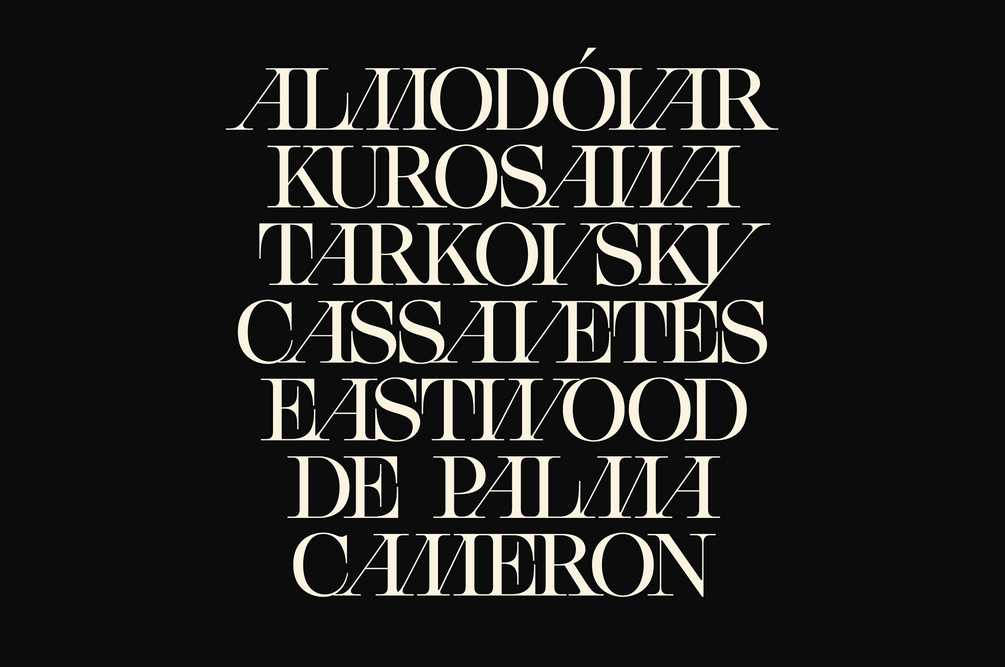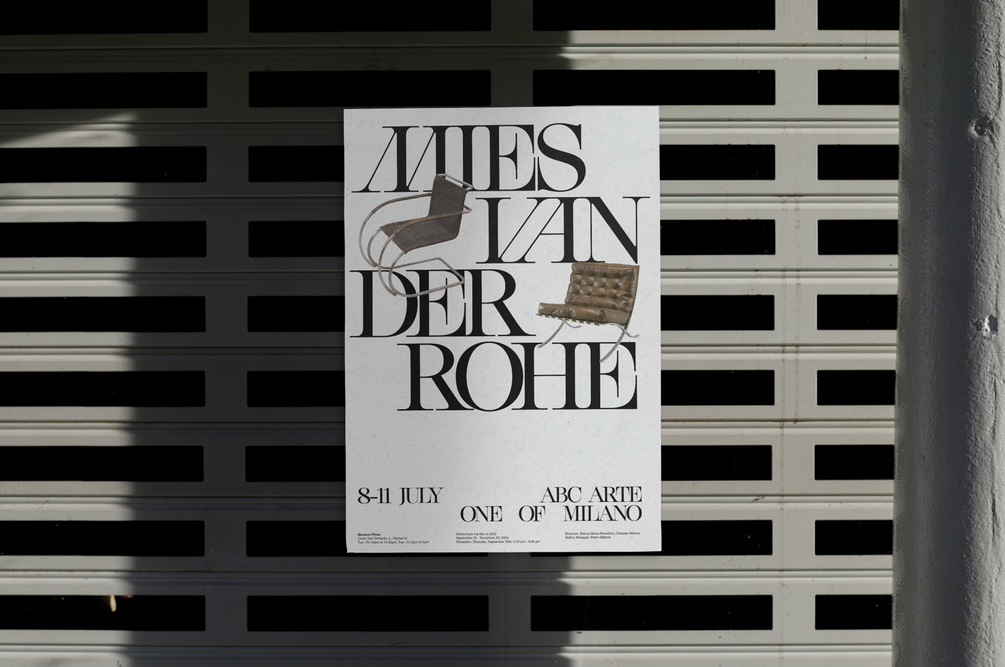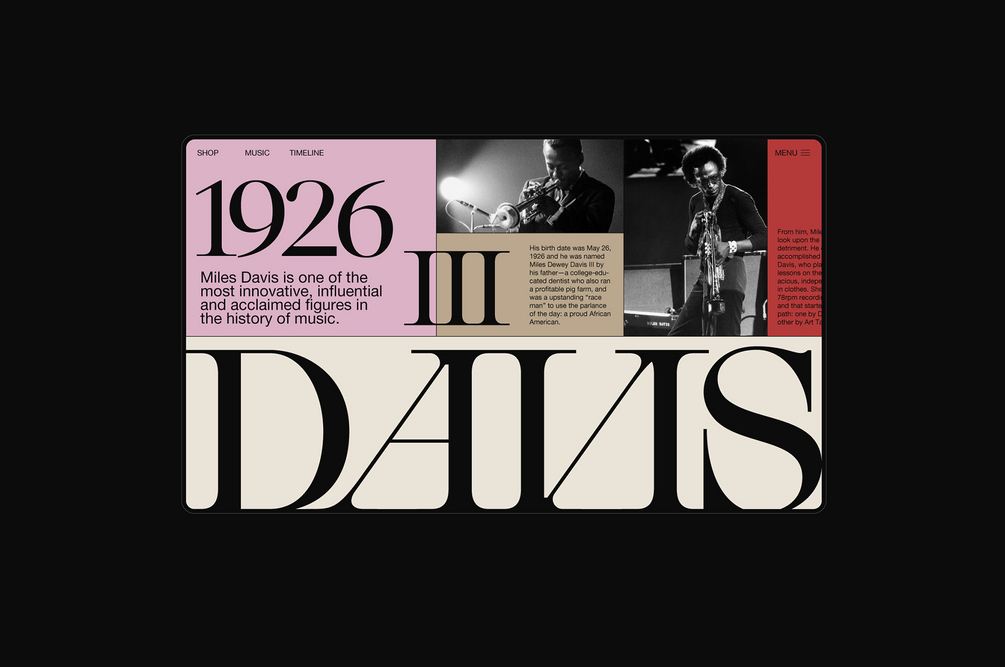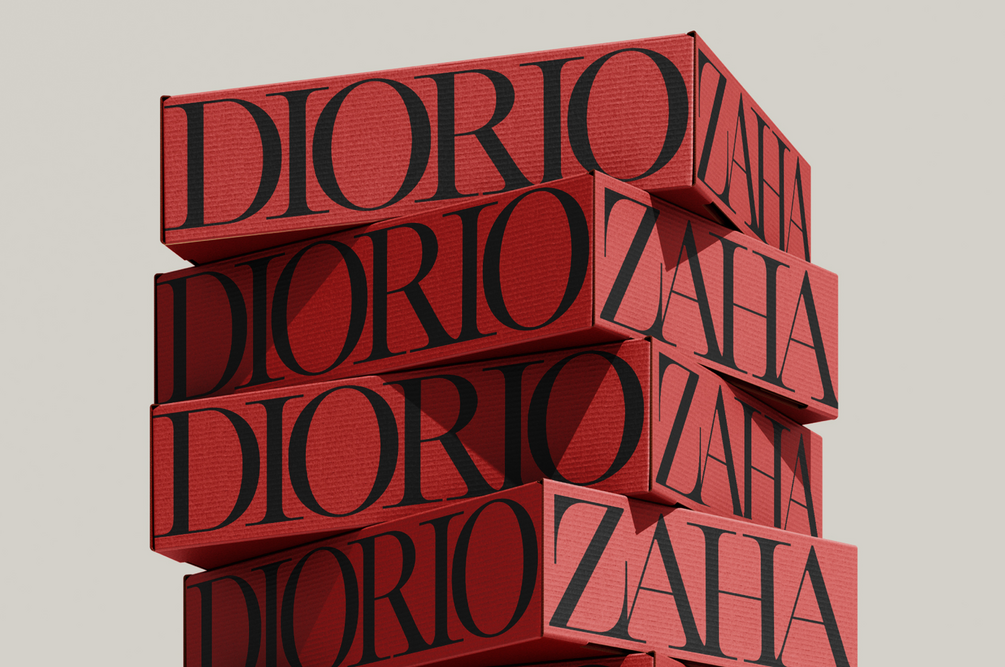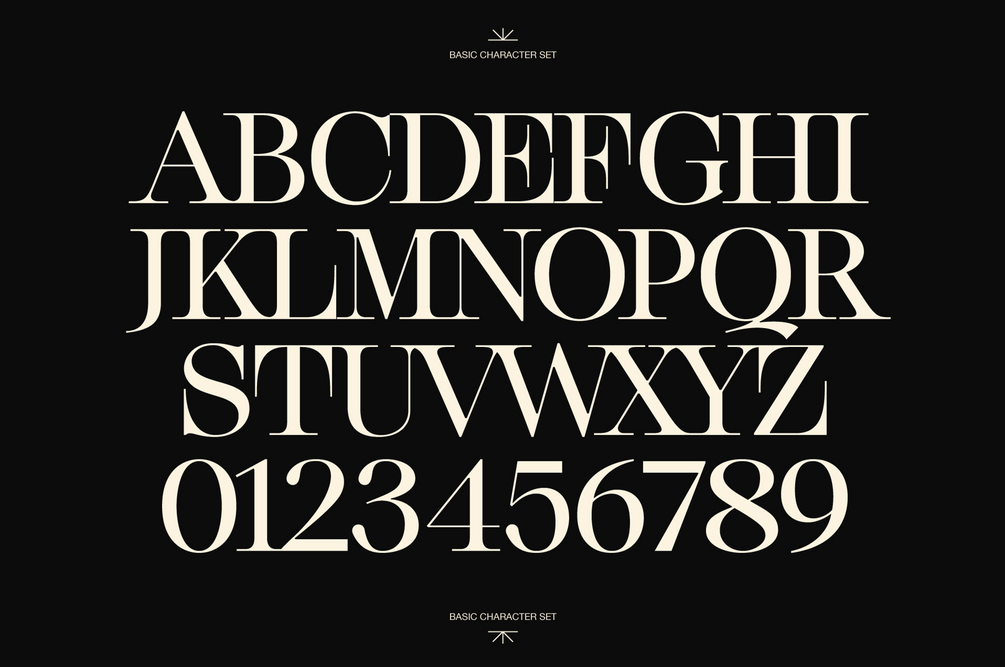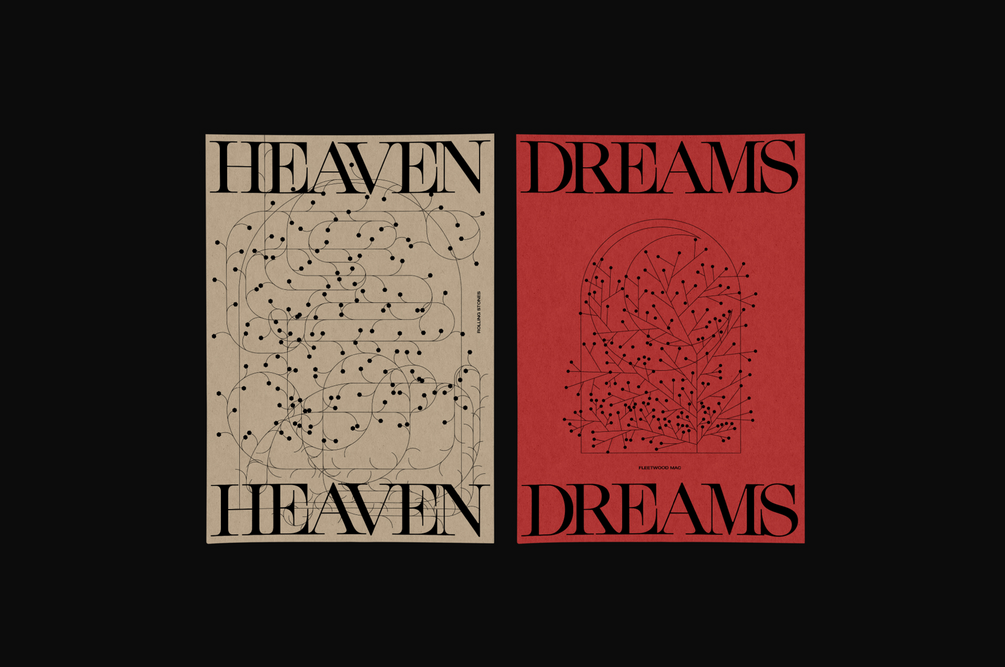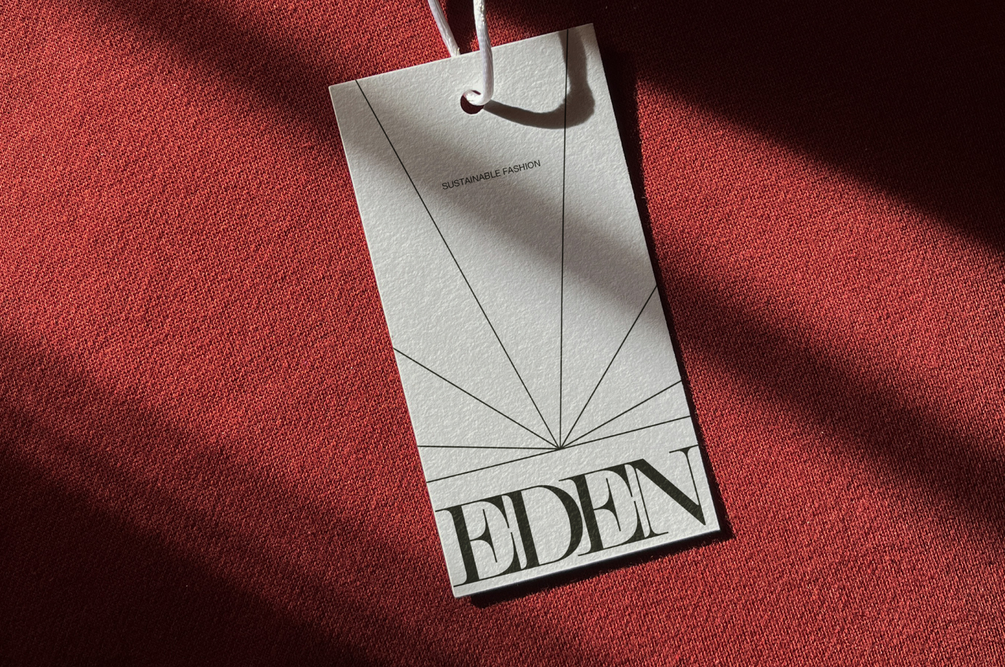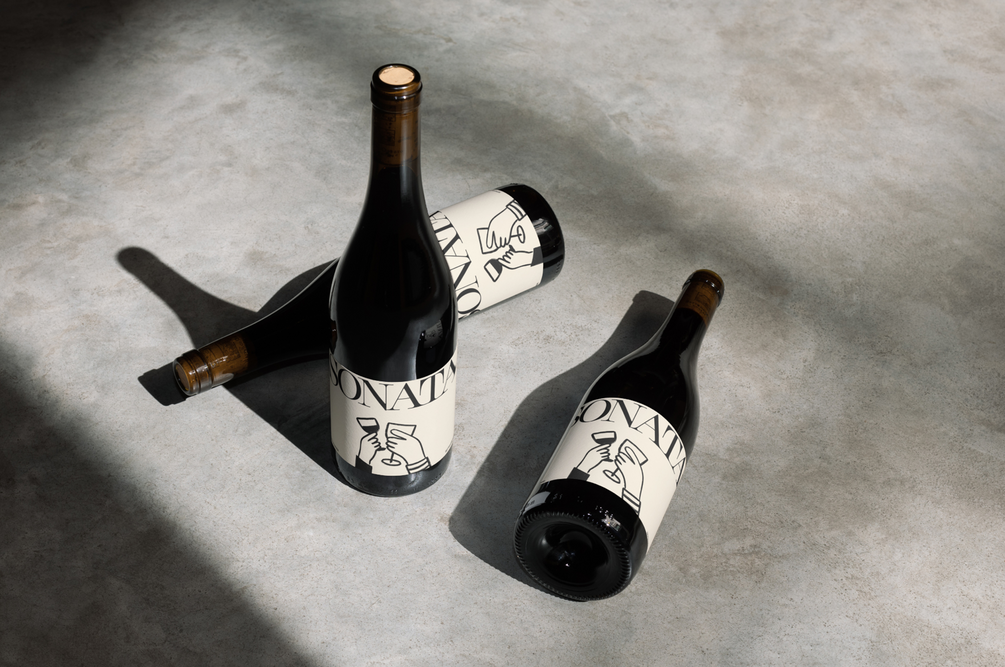
Miles Regular
Miles draws inspiration from iconic Didone typefaces, reimagined with a modern flair.
It offers a contemporary twist, featuring elongated serifs and thin horizontals.
Includes five extra characters, giving you even more flexibility and fun playing around with your headings.
Miles is serif font made with only uppercase glyphs. So make sure you only type with caps on when designing.